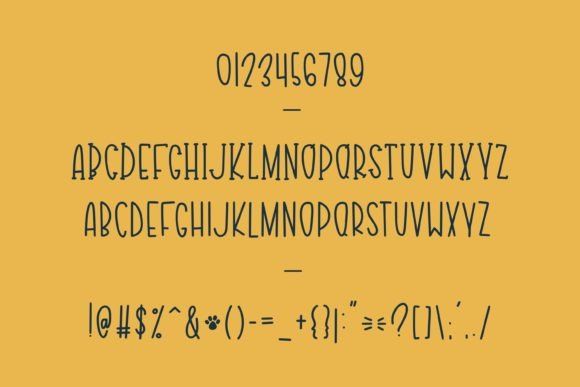
Introduction to Go Fight Win Font
As a designer, have you ever been stuck on a project and needed that extra push to bring your creative vision to life? For me, it’s often the small details that make all the difference – a cleverly chosen font, a pop of color, or a dash of personality. And that’s exactly what the Go Fight Win Font delivers: a spirited, hand-lettered font that brings the energy of the game to your creative projects.
Whether you’re working on a team banner, sporty merchandise, or crafting motivational quotes to cheer on your favorite team, the Go Fight Win Font is the perfect design resource. With its clean, handwritten lines and lively personality, this font is sure to score big with any audience. And the best part? It’s a high-quality, free download that’s ready to use in your next project – complete with a transparent background for seamless integration.
Key Features of Go Fight Win Font
- Unique and bold font design ideal for sports and motivational creative projects
- High-quality font with transparent background, allowing for seamless integration with various design elements
- Includes 3 different font styles: Regular, Bold, and Italic, offering versatility for various design applications
- Size: The font family includes 250+ glyphs, covering a wide range of characters and languages
Honest Review: Go Fight Win Font
As a designer, I’m always on the lookout for unique and high-quality design resources. The Go Fight Win Font is a font that caught my attention with its bold and energetic vibe.
Here are some things that work well with this font:
- ✨ It’s perfect for creative projects that need a boost of energy and motivation.
- ✨ It has a transparent background, allowing for seamless integration with other design elements.
- ✨ The font is high-quality and works well in a variety of contexts, from headings to body text.
- ⚠️ The font may not be suitable for projects that require a more subtle or elegant aesthetic.
- ⚠️ Some users may find the font’s boldness overwhelming in certain contexts.
Overall, I think the Go Fight Win Font is a great addition to any designer’s toolkit. While it may not be suitable for every project, it’s a high-quality and versatile font that can add a lot of energy and excitement to a design.
The Go Fight Win Font is commonly used in sports-themed designs, motivational quotes, and inspirational graphics. You can also use it in creative projects, such as posters, flyers, and social media graphics, to add a touch of personality and style.